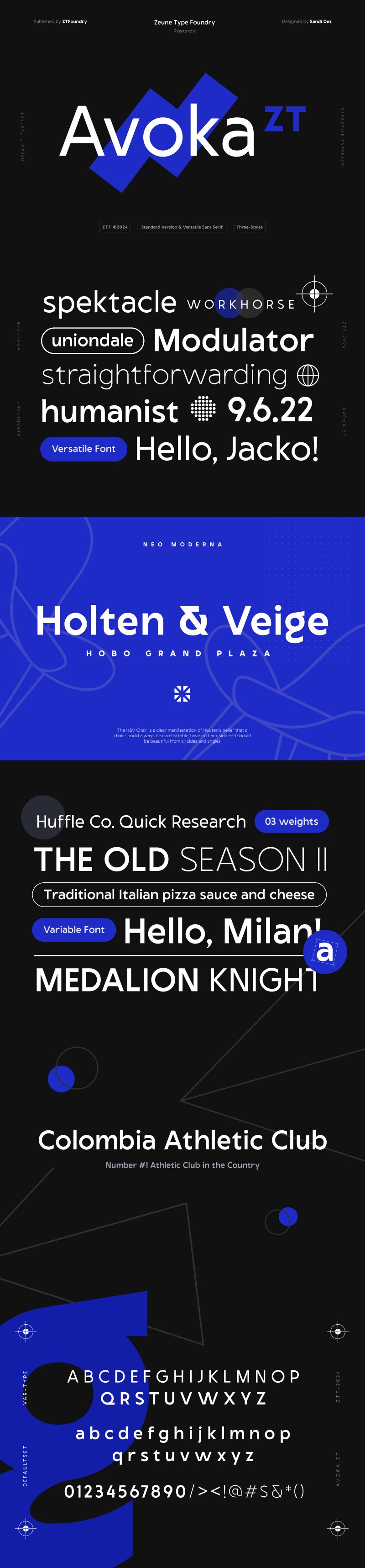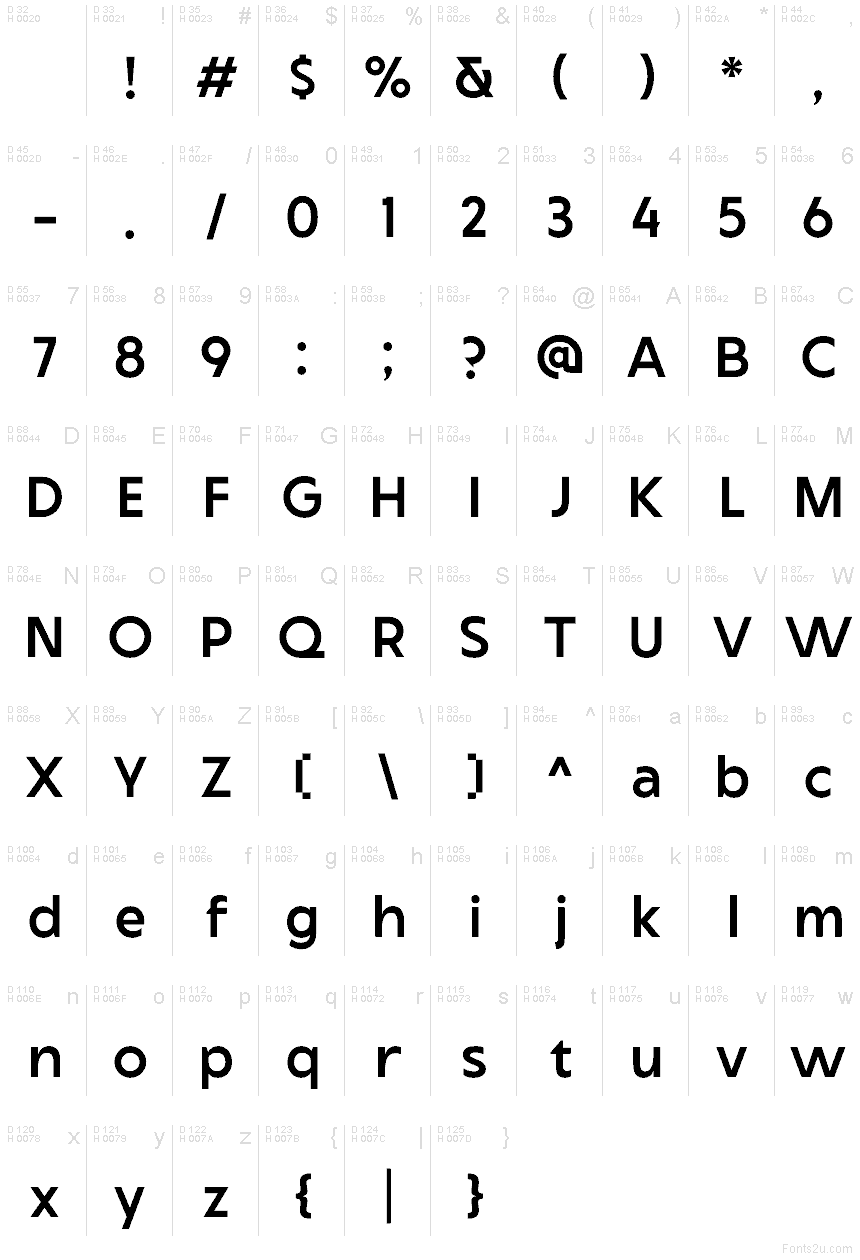
Avoka ZT_Standard Version 1.0 Bold
Avoka ZT Standard Bold font by Sandi Dez is a free bold sans serif typeface that solves the “friendly yet forceful” brief. From the Avoka ZT family, it mixes broad, even strokes with crisp, straight cuts—the rounded bowls stay warm while the Z- and T-forms snap with precision. Generous counters and steady rhythm keep words readable at a glance, so big statements don’t turn into dark, clumsy blocks.
Using Avoka ZT Standard Bold, you can punch up headlines, posters, product packaging, tech branding, signage, and social thumbnails without losing clarity. The spacing holds together at large sizes, and the blunt endings give logos a confident, contemporary edge. Pair this free font with Avoka ZT Regular or a light grotesque for body copy, and tighten tracking slightly for oversized type to make it lock up clean.
Avoka ZT Standard Version 1.0 includes the following styles: Avoka Light, Avoka Regular, Avoka Bold.